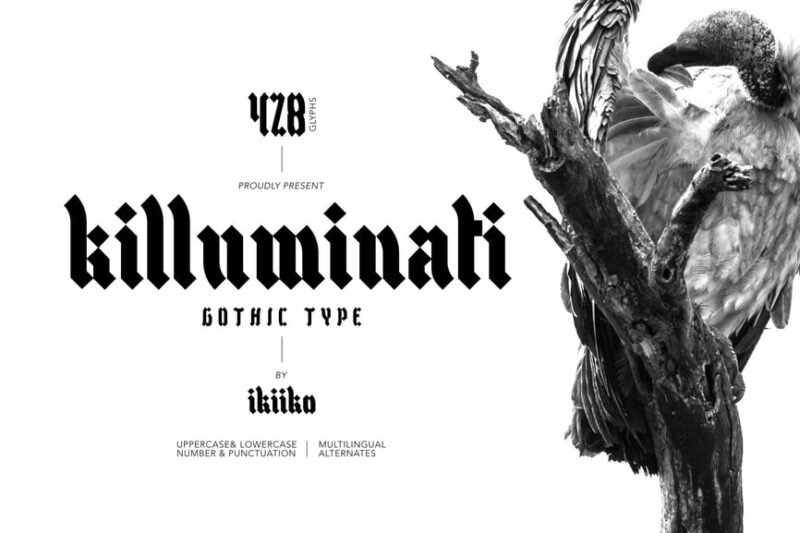
Transform your text into darkly elegant beauty with our free Gothic font generator! Perfect for creating mysterious designs that capture the haunting sophistication of medieval manuscripts and Victorian elegance. Our tool features dramatic blackletter and ornate fonts that whisper tales of ancient cathedrals and moonlit libraries.
Create Hauntingly Beautiful Text Fit for Ancient Manuscripts!
Quispe – Gothic Font
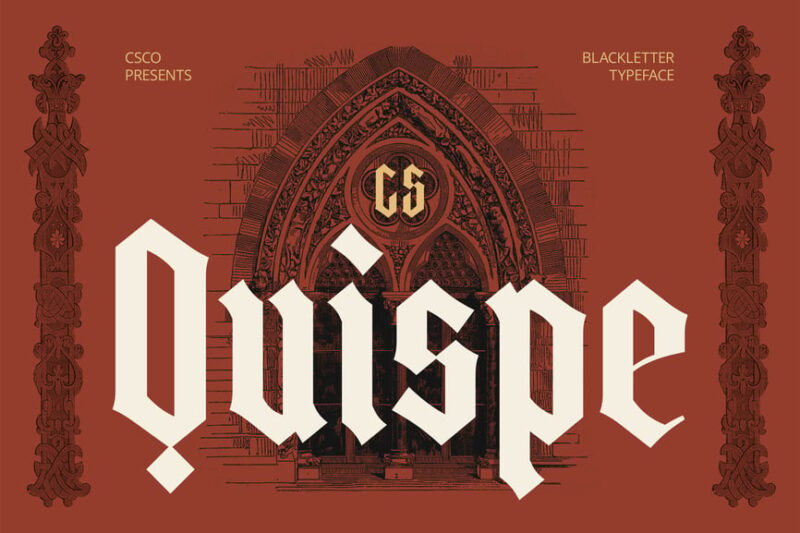
Quispe is a bold and decorative gothic font that’s perfect for logos and headlines. Its strong, angular letterforms make a powerful statement, ideal for designers looking to create impactful branding or eye-catching titles.
Rohesia – Gothic Font
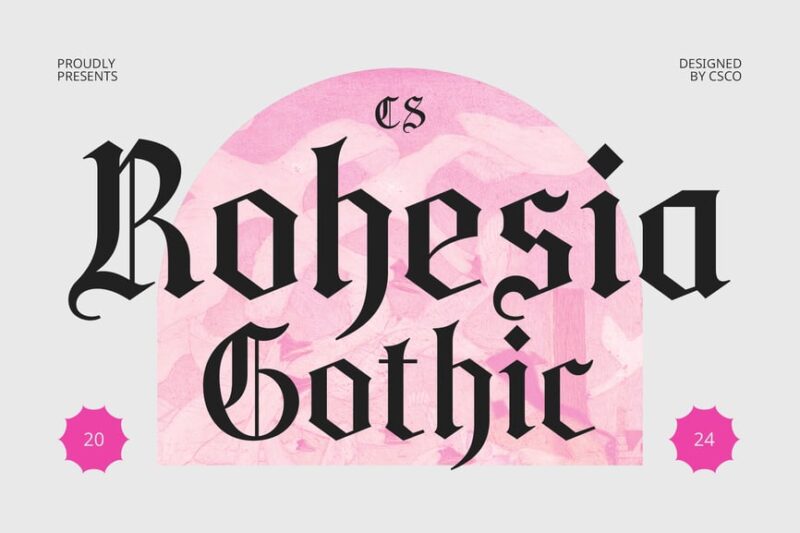
Rohesia is a dramatic gothic font that exudes a heavy metal aesthetic. Its intricate, ornate design makes it perfect for creating gothic-inspired artwork or heavy metal band logos, offering designers a tool to craft edgy and intense visual experiences.
Raven Hell Gothic
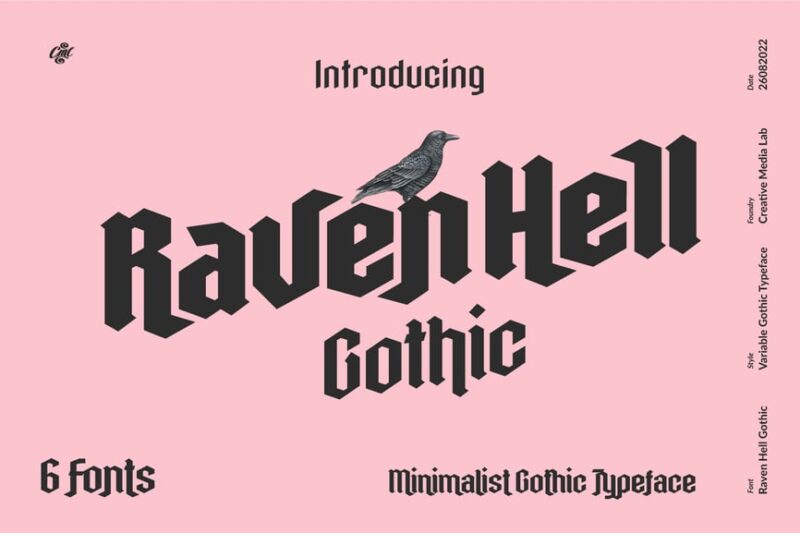
Raven Hell Gothic is a sans-serif font that blends medieval and punk influences. Its clean lines with a touch of edginess make it versatile for various design projects, from album covers to alternative fashion branding.
Killuminati – Gothic Type
Killuminati is a serif gothic font that embodies the spirit of rock and heavy metal. Its sharp, aggressive serifs and bold strokes make it ideal for creating intense, high-energy designs for music-related projects or edgy brand identities.
Swordstone – Gothic Typeface
Swordstone is a gothic typeface that evokes a sense of medieval stonework. Its rough, chiseled appearance makes it perfect for creating designs with a historical or fantasy theme, ideal for book covers, game designs, or period-piece branding.
Wild Gothic – Experimental Blackletter
Wild Gothic is an experimental blackletter font that pushes the boundaries of traditional medieval typography. Its condensed, stylized letterforms offer designers a unique tool for creating modern designs with a gothic twist, perfect for fashion, music, or avant-garde projects.
Popular Uses for Gothic-Style Text
Looking to add some mysterious elegance to your next project? Our Gothic-style font brings that dramatic medieval atmosphere to everything from wedding invitations to artistic projects. Here are some popular ways our users create designs that honor centuries of beautiful darkness:
- Elegant wedding invitations and save-the-dates
- Gothic and Victorian-themed event materials
- Book covers for mystery and historical fiction
- Halloween and autumn celebration decorations
- Historical museum exhibit materials
- Art gallery and exhibition signage
- And more creative uses than gargoyles on Notre Dame!
- Quick Download: Faster than flickering candlelight
- Works Everywhere: More reliable than ancient parchment
About Gothic Typography
Gothic fonts, also known as blackletter or Old English, trace their origins to medieval manuscript illumination and early printing. These ornate letterforms combine artistic beauty with historical gravitas, representing centuries of craftsmanship from monastery scriptoriums to Victorian printing houses.
The Heritage of Darkness and Light
From the Book of Kells to Gutenberg’s Bible, Gothic typography has always been about more than mere letters – it’s about creating an atmosphere of reverence, mystery, and timeless beauty. Each stroke carries the weight of history and the promise of stories yet untold.
Important Note
Our Gothic font generator celebrates the rich artistic heritage of medieval and Victorian typography. These fonts are perfect for adding historical elegance and dramatic flair to personal and commercial projects while respecting their cultural significance.